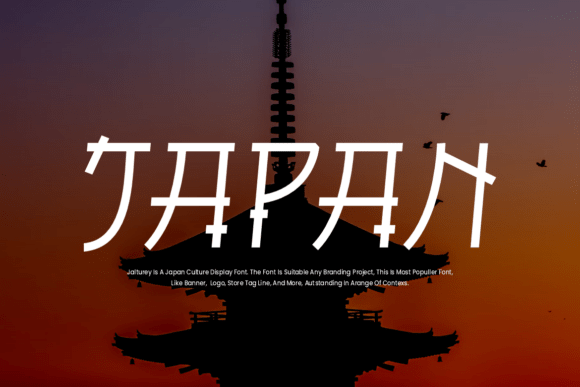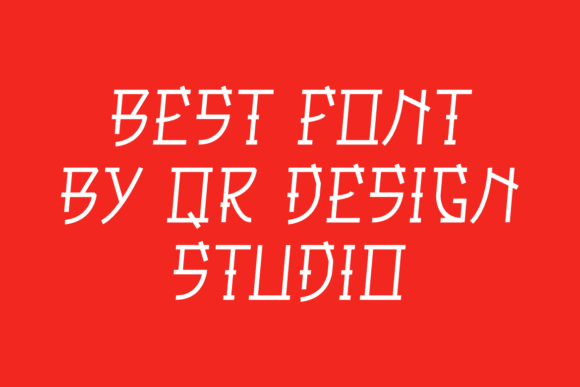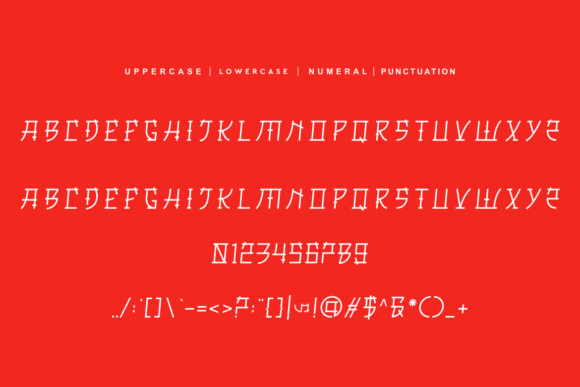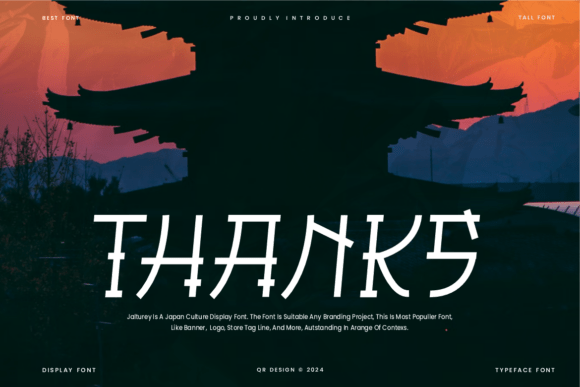
Introduction to Jalturey Font
Jalturey is a decorative font, inspired by the Japanese language.
Key Features of Jalturey Font
Why Choose Jalturey Font?
Jalturey Font offers exceptional quality and versatility, making it a valuable addition to your design toolkit. Whether you’re creating for personal projects or commercial use, Jalturey Font delivers professional results.